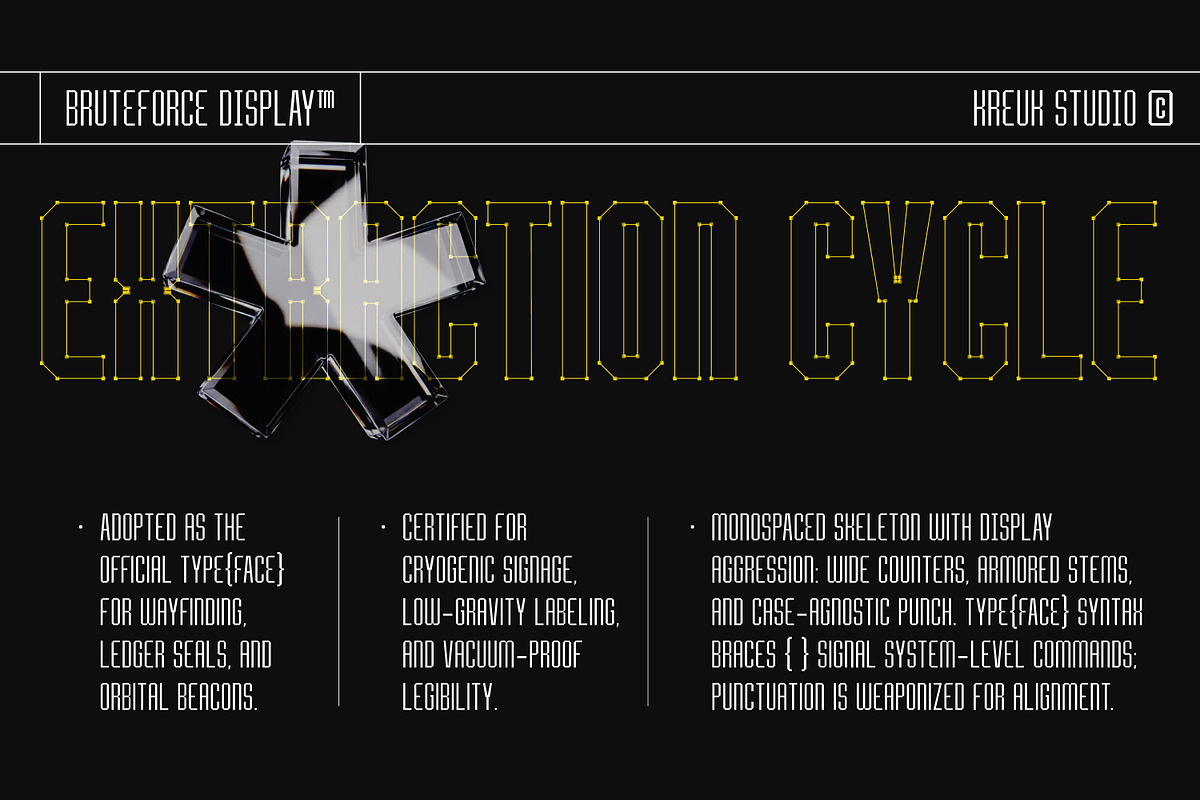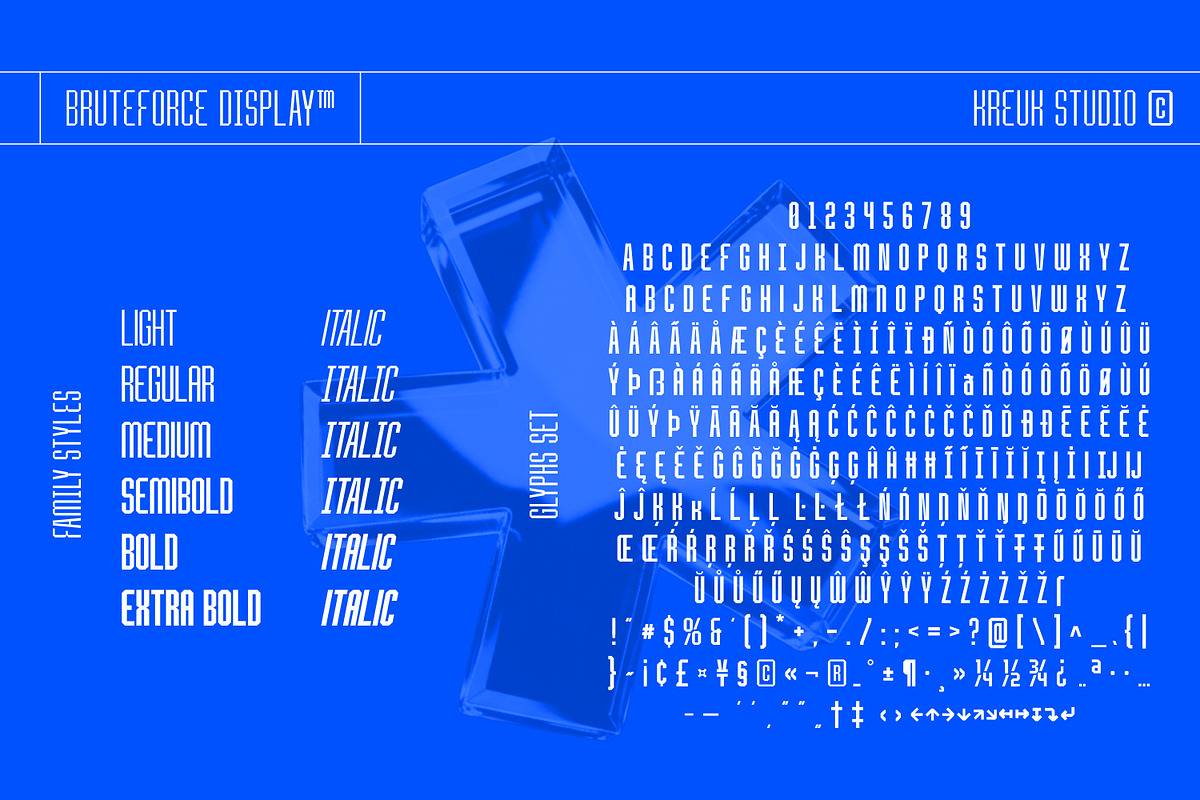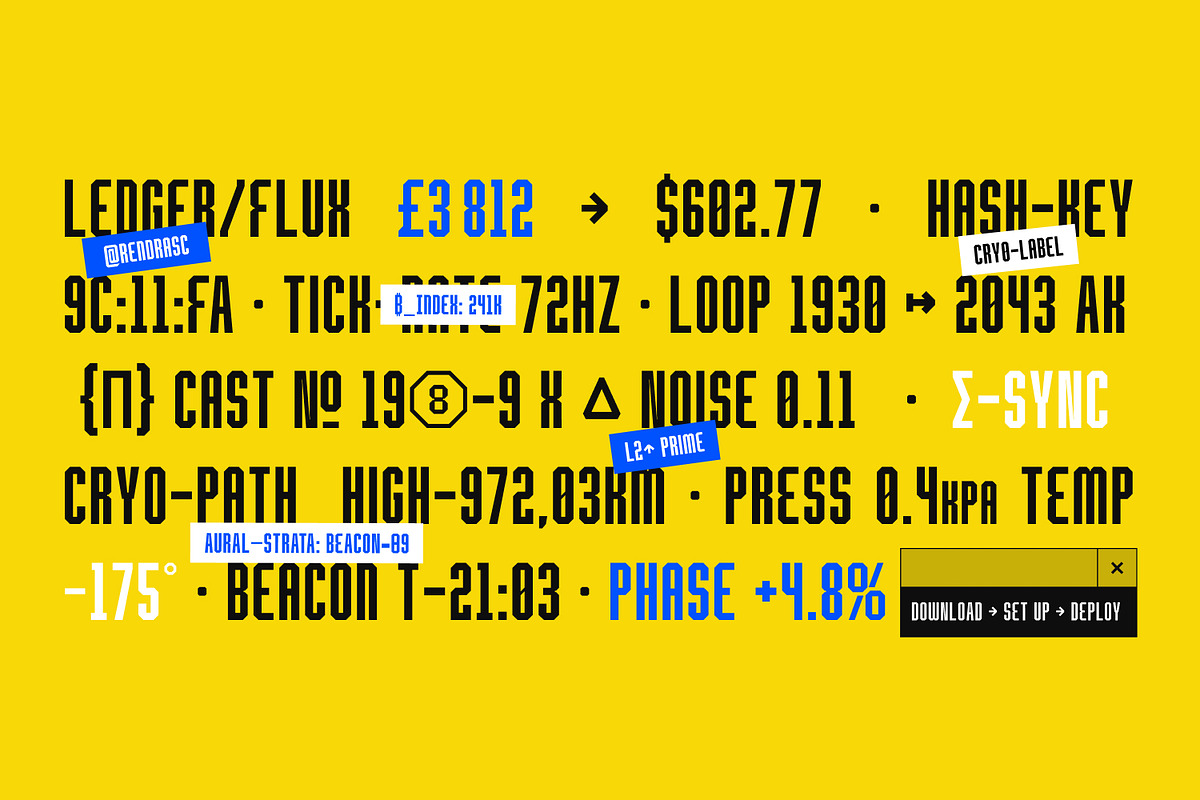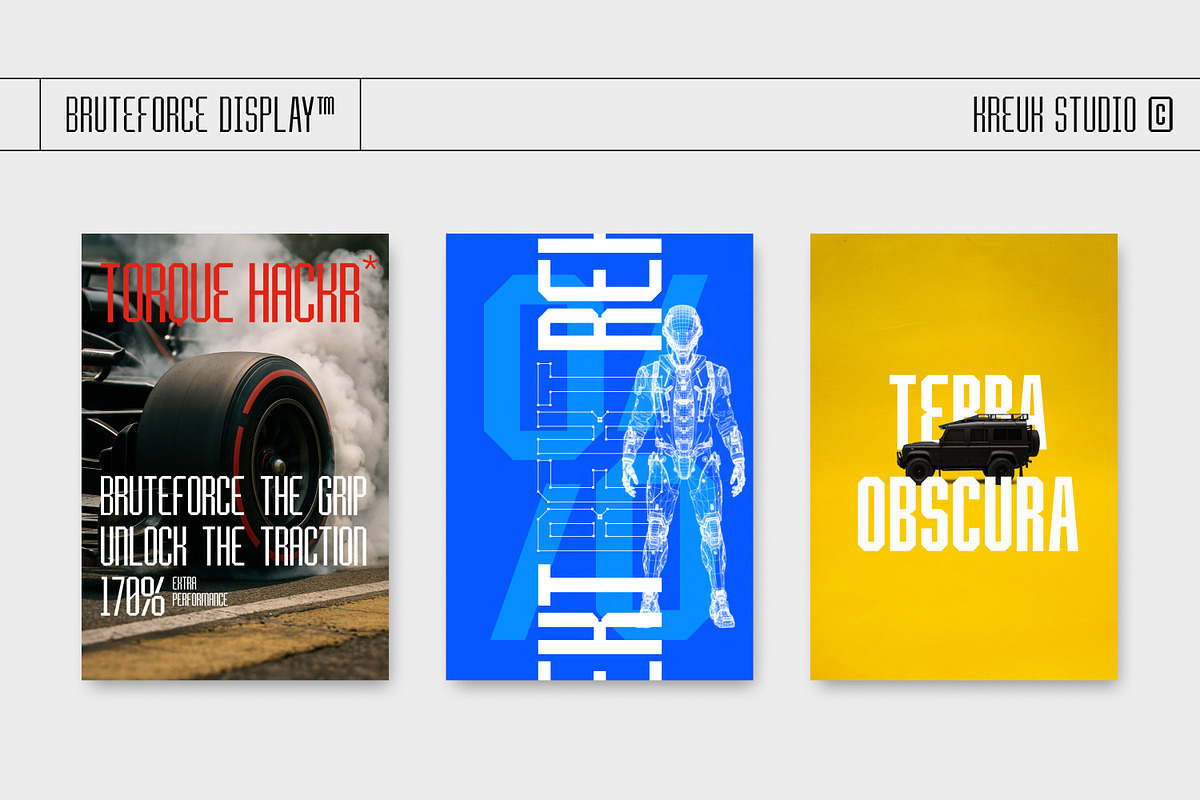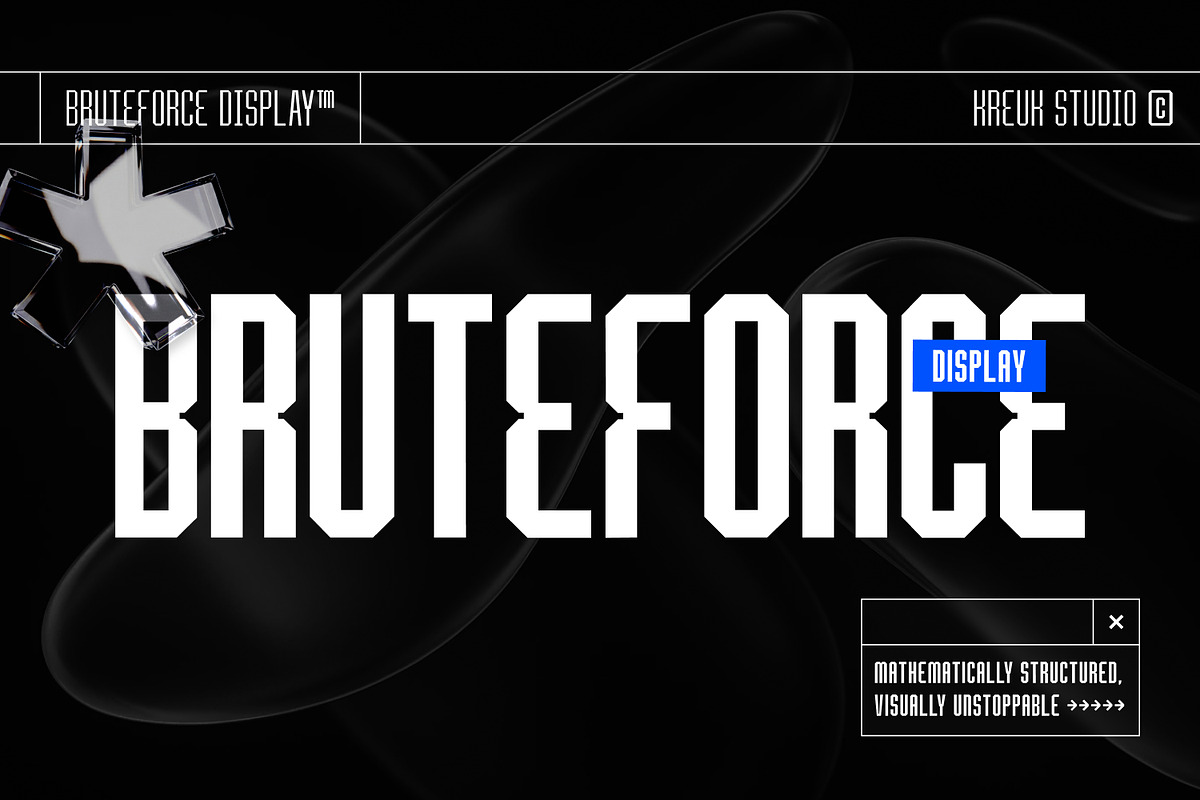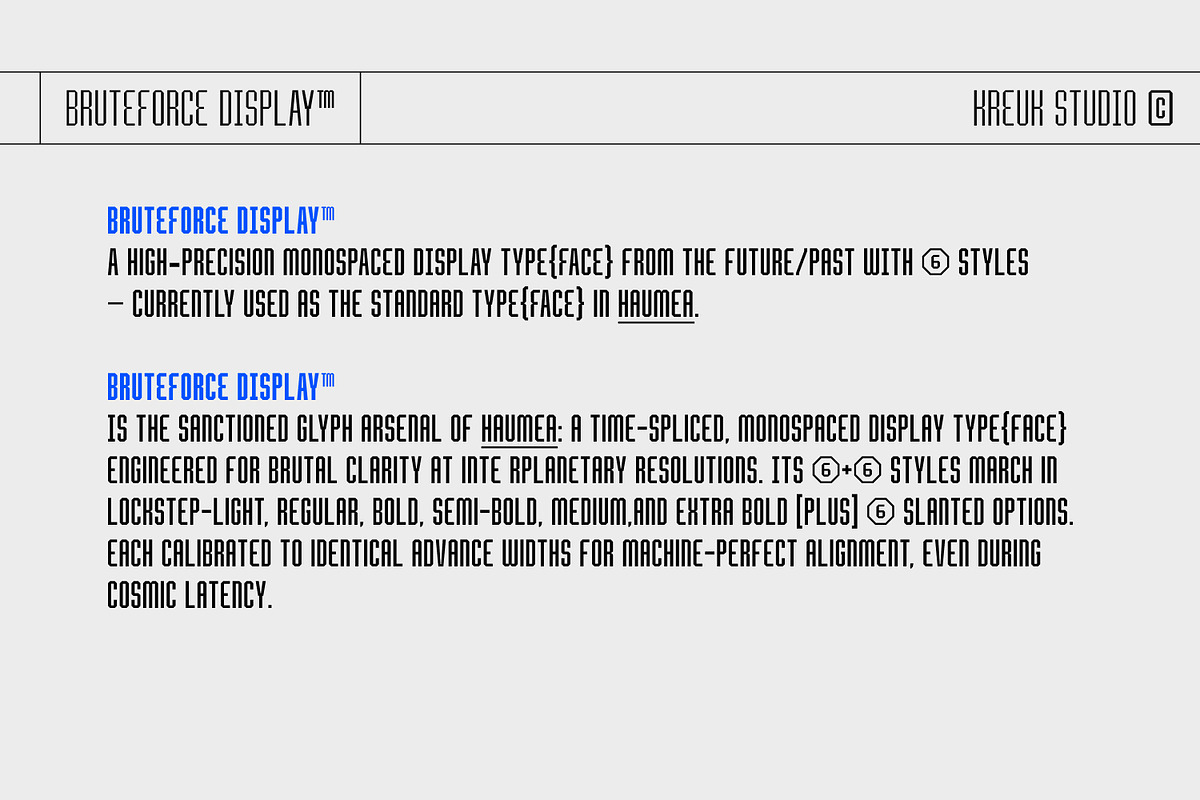
Bruteforce Display
Bruteforce Display™ is a contemporary geometric display typeface that blends precision engineering with bold visual energy. Designed for creatives who value control, clarity, and confidence, each letterform is crafted with angular geometry, rhythmic balance, and structural strength — resulting in a typeface that commands attention in any setting.
From posters and logos to digital interfaces and futuristic branding, Bruteforce Display™ delivers a sense of mechanical accuracy and architectural authority. Its clean geometry and distinctive edge make it ideal for projects that demand both technical precision and expressive impact.
Available in six carefully developed weights — from Light to Extra Bold — with matching Italics, Bruteforce Display™ offers a full typographic toolkit for designers working across print and digital media. Every style is optimized for consistent spacing, optical balance, and high-contrast legibility at display sizes.
Key Features • Six weights with matching Italics (12 styles total) • Geometric structure with sharp, octagonal detailing • Full Latin character set and complete punctuation support • Refined kerning and spacing for display optimization • Designed for impactful use in titles, branding, sports, gaming, and technology visuals
Ideal Applications
- Strong branding and logo systems
- Futuristic and tech-oriented designs
- Posters, album covers, and editorial layouts
- UI headlines, digital campaigns, and motion graphics
Bruteforce Display™ — precision-built typography for bold, modern expression.-